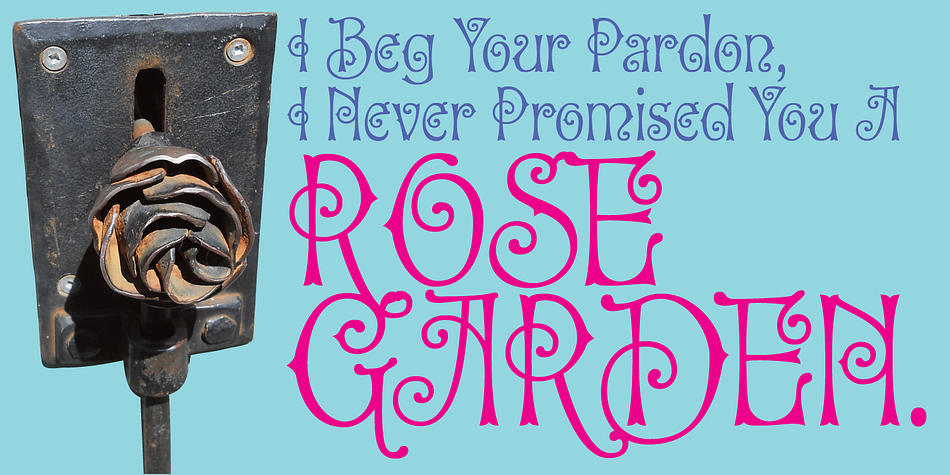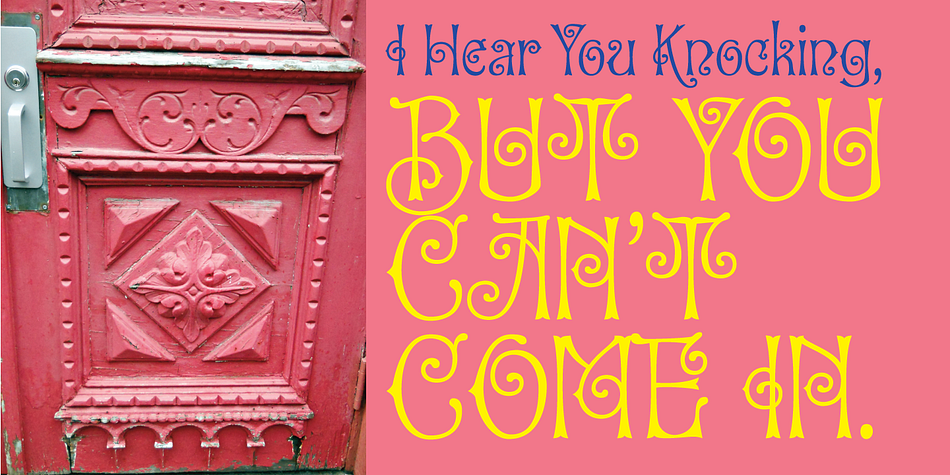
P22 Clementine
Designed by Ted Staunton, P22 Clementine is a script and art nouveau font family. This typeface has two styles and was published by P22 Type Foundry.
A bit of Victoriana whimsy from Ted Staunton. This set of two fonts is heavily inspired by a variety of 19th Century faces without being a direct revival of anyone in particular. Undulating curves, swirly terminals, and bifurcated semi-serifs give these faces plenty of character. Both fonts include f ligatures and ct/st ligatures. Clementine Curly includes a full set of alternate curly caps as opentype alternates making it essentially a bonus font within a font!
Designer Ted Staunton